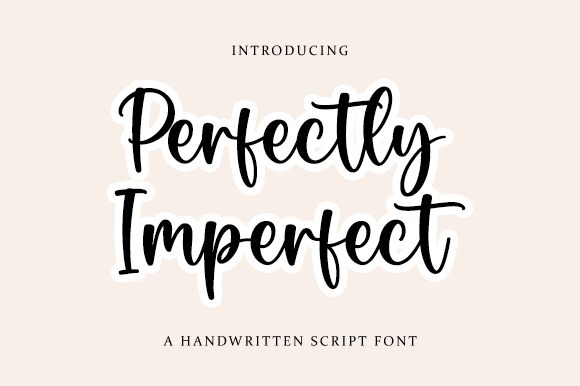
Perfectly Imperfect
Perfectly Imperfect, designed by Graphix Line Studio, is a charming handwritten script font that exudes elegance and personality. Its unique style lends itself perfectly to a wide range of creative projects, making it suitable for everything from wedding invitations and greeting cards to branding, packaging, and social media graphics.
With its graceful, yet distinct appearance, Perfectly Imperfect adds a touch of warmth and individuality to any design. Use it to create stunning logos, posters, merchandise, or any project that calls for a personal and authentic feel. Whether you're designing for a boutique clothing line or a cozy coffee shop, this font will bring an air of sophistication and charm to your work.
Embrace the beauty of imperfection with Perfectly Imperfect font – your go-to choice for creating captivating and unique designs.